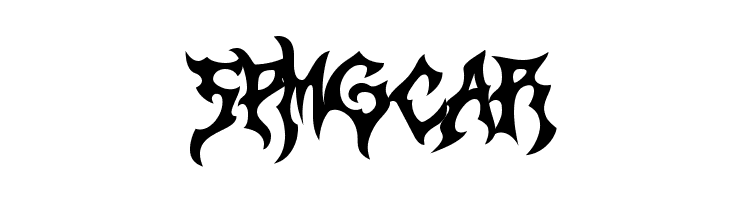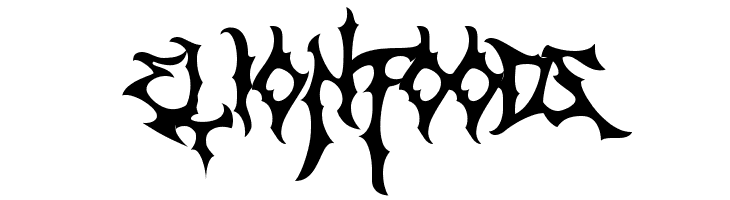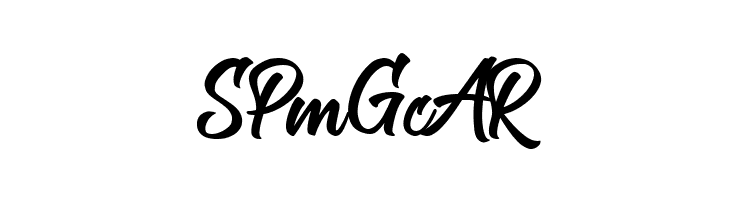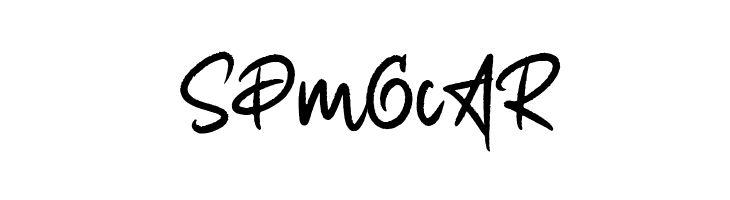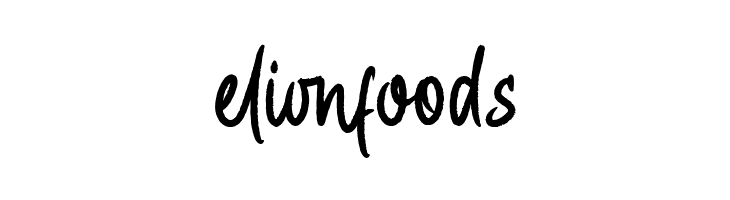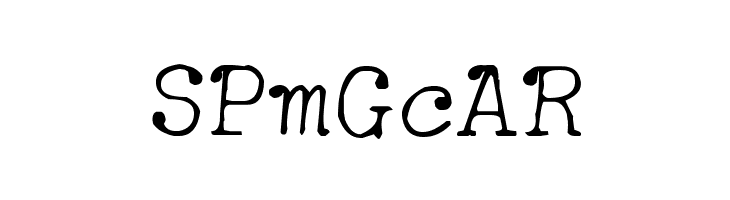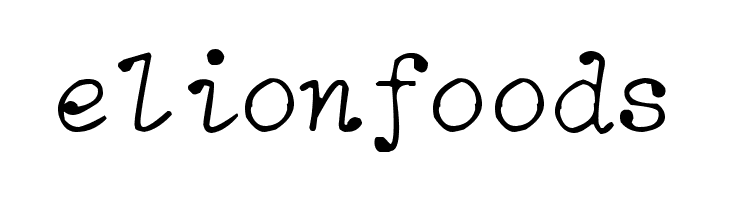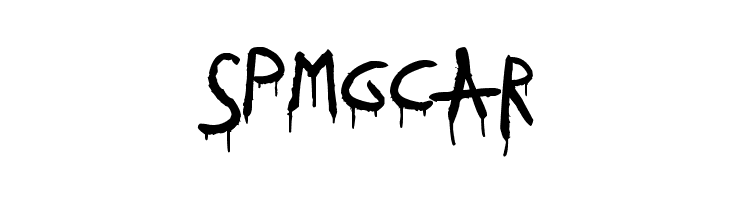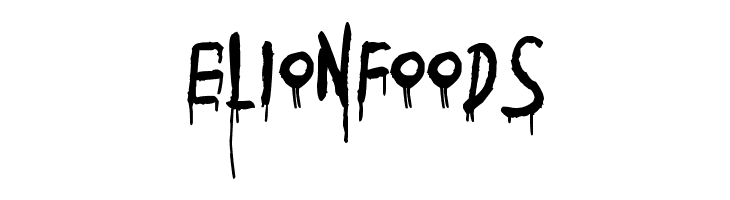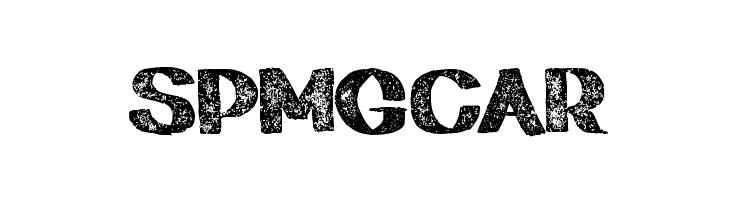
• yumernub slanty
A bold, slanted font with outlined characters and a dynamic style.
• Zabiat
A lively and energetic handwritten font with playful curves.
• Zafrilus
A bold, dynamic script font with flowing, cursive letterforms.
• zai Covid Pandemic Lockdown
A bold, distressed font with a rugged, grunge-like texture.
• zai I&eCovid-19
A bold, dripping font with a grunge and horror-inspired aesthetic.
• zai Soft Italic Typewriter
A charming, italic typewriter-style font with a handwritten feel.
• zai Triumph Typewriter bold Bold
A bold, textured typewriter-style font with a vintage, distressed look.
• ZAMRUDS
A bold, gothic-style font with sharp, angular edges and a dramatic aesthetic.
• Zealousy
A playful, bold font with rounded, organic shapes and consistent stroke width.
• Zealousy